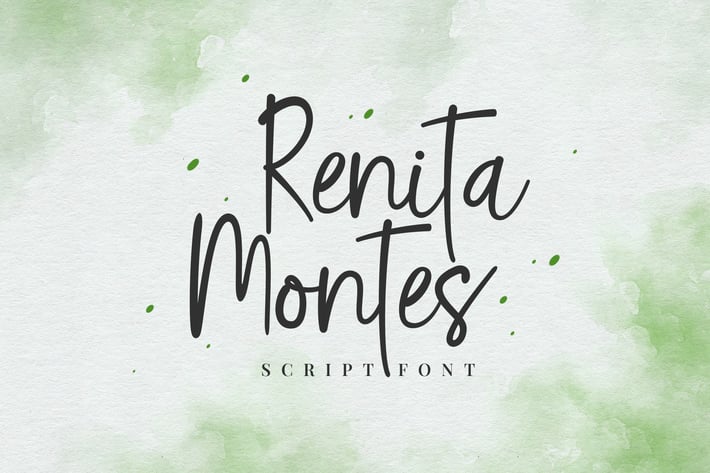
Renita Montes Signature Font
Introducing of our new product the name is Rookie Fiesta Handwritten Font. This collection of scripts is perfect for personal branding. It was made with the intention to be used for your personal branding. But, this works well for many applications. Everything from personal branding, logos, name tag, handwritten quotes, product packaging, merchandise, social media & greeting cards. photography signature, advertising could benefit from this collection of these bold signature fonts.